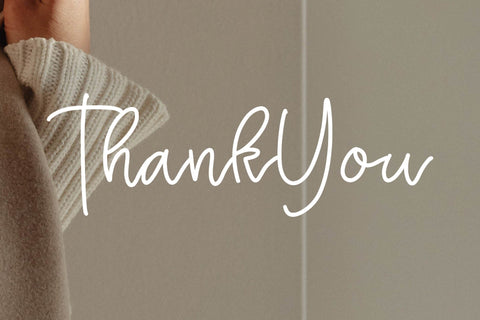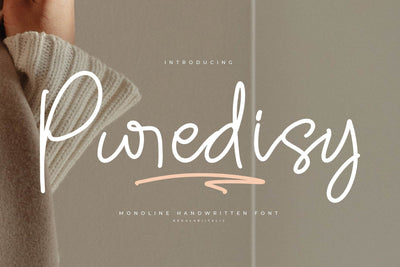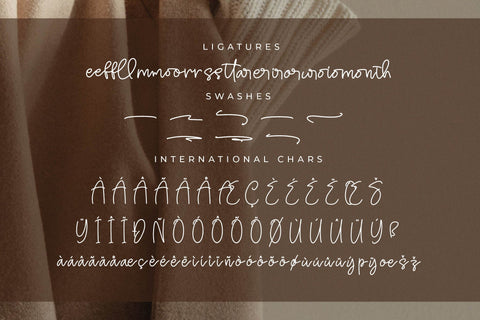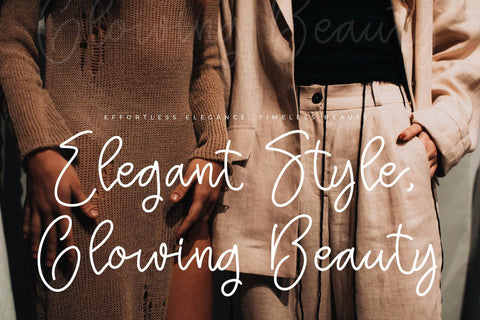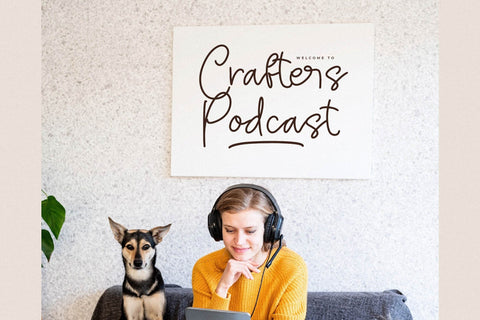
Puredisy - Monoline Handwritten Font
Puredisy - Monoline Handwritten Font , from Letterena, is a Luxury Script font, suitable for any projects such as: logos, branding projects, homeware designs, product packaging, mugs, quotes, posters, shopping bags, t-shirts, book covers, name card, invitation cards, greeting cards, label, photography, watermark, special events, and all your other luxury and beautiful projects that need a Luxury serif taste.